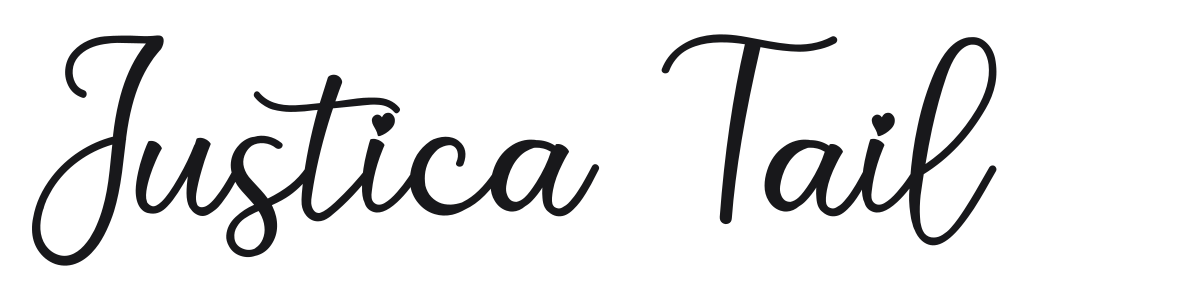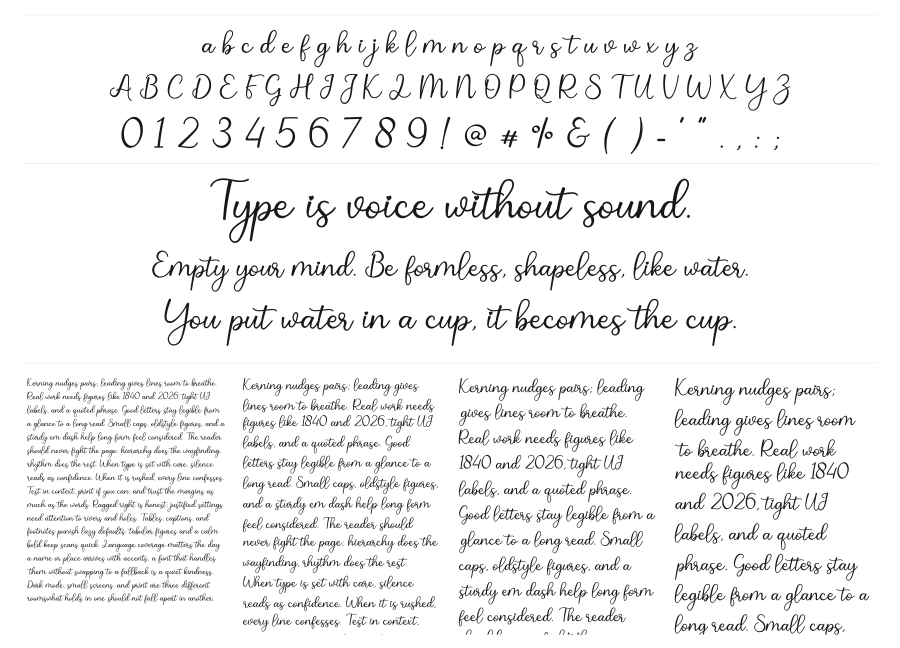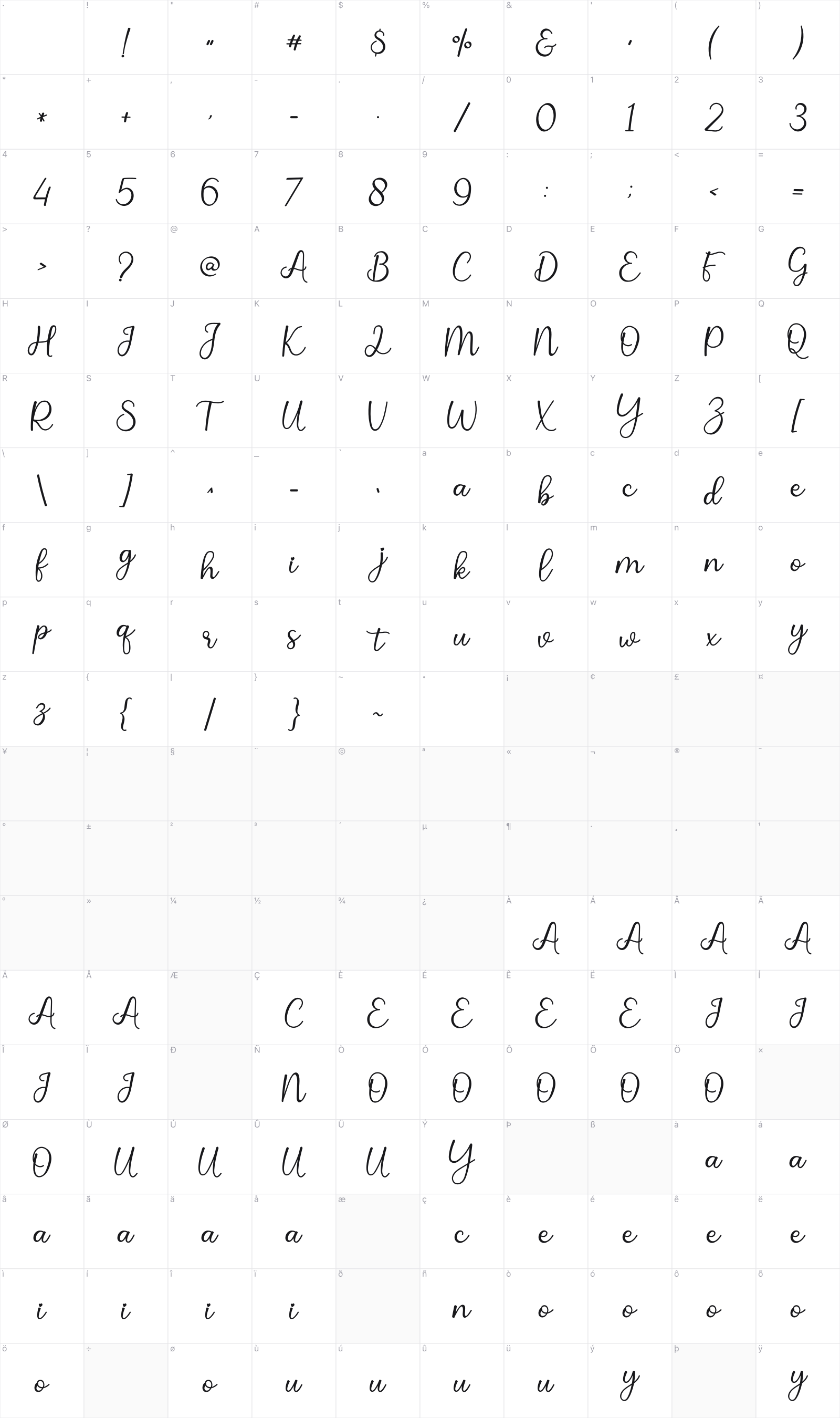
Justica Tail
Justica Tail is a flowing casual script with generous loops, swashy terminals, and a warm hand-lettered feel. The moderate stroke contrast and bouncy baseline give it personality without tipping into the precious. It works well for wedding stationery, product packaging, and any branding that wants handcrafted warmth.